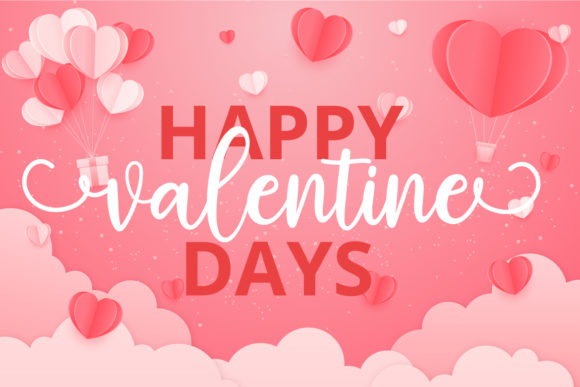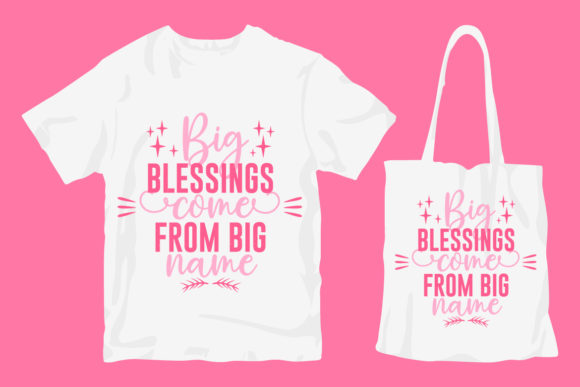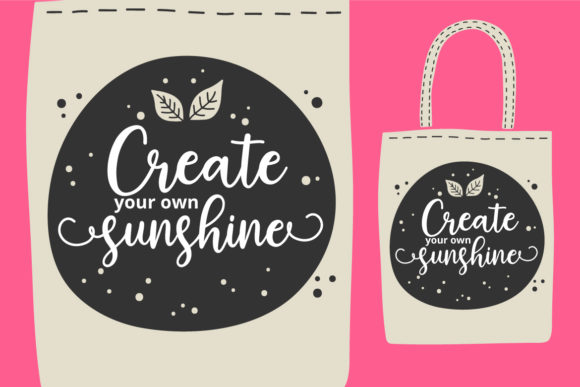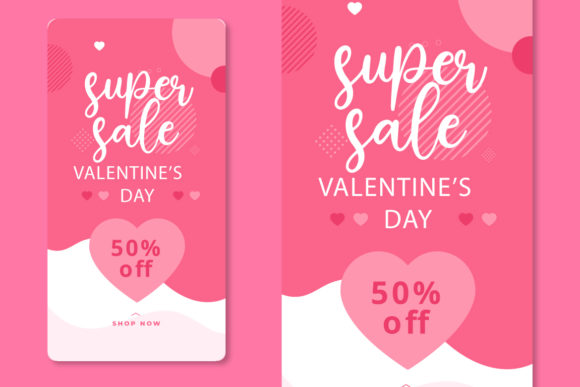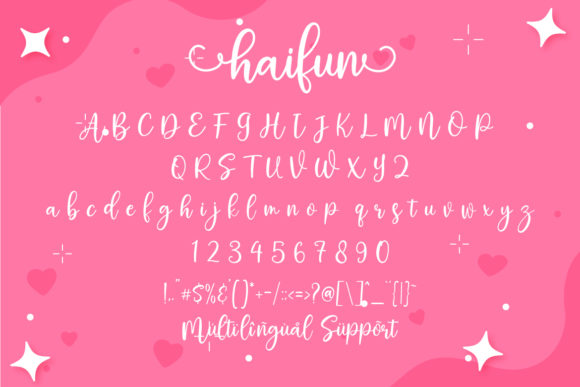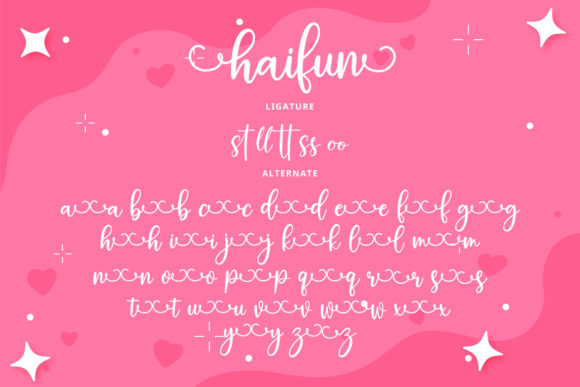
Introducing Haifun Font: The Sweet and Delicate Handwritten Font for Romantic Designs
Are you a designer or crafter looking for a font that can add a touch of romance and personalization to your designs? Look no further than Haifun Font, a sweet and delicate handwritten font that’s perfect for creating beautiful wedding invitations, cards, and other designs that require a special touch.
What Makes Haifun Font Special?
Haifun Font is a dainty and joyful font that’s designed to bring a sense of elegance and sophistication to your designs. Its delicate and handwritten style makes it ideal for creating romantic and personalized designs that will leave a lasting impression on your audience. Whether you’re designing wedding invitations, greeting cards, or other special occasion designs, Haifun Font is the perfect choice.
Key Features of Haifun Font
- PUA Encoded: Haifun Font is PUA (Private Use Area) encoded, which means you can access all of the glyphs and swashes with ease. This makes it easy to use and customize the font to suit your design needs.
- Sweet and Delicate: Haifun Font has a sweet and delicate style that’s perfect for creating romantic and personalized designs.
- Handwritten Style: The font has a handwritten style that gives it a personal and unique touch.
- Versatile: Haifun Font can be used for a variety of design projects, including wedding invitations, cards, and other special occasion designs.
Uses for Haifun Font
Haifun Font is a versatile font that can be used for a variety of design projects, including:
- Wedding Invitations: Create beautiful and romantic wedding invitations that will set the tone for the big day.
- Greeting Cards: Design personalized greeting cards for special occasions, such as birthdays, anniversaries, and holidays.
- Stationery: Use Haifun Font to create custom stationery, including letterheads, journals, and notebooks.
- Digital Designs: Use the font to create digital designs, such as social media graphics, blog posts, and email newsletters.
Why Designers and Crafters Love Haifun Font
Designers and crafters love Haifun Font for its unique and romantic style. The font is easy to use and customize, making it perfect for creating personalized designs that stand out from the crowd. Here are just a few reasons why designers and crafters love Haifun Font:
- Ease of Use: Haifun Font is easy to use and customize, even for those who are new to font design.
- Unique Style: The font has a unique and romantic style that’s perfect for creating designs that stand out from the crowd.
- Time-Saving: Haifun Font saves designers and crafters time and effort, as it can be used to create beautiful designs quickly and easily.
Tips for Using Haifun Font
Here are a few tips for using Haifun Font to create beautiful designs:
- Pair with Other Fonts: Pair Haifun Font with other fonts to create a unique and interesting design.
- Use Swashes and Glyphs: Use the swashes and glyphs included with Haifun Font to add a personal touch to your design.
Haifun Font is a sweet and delicate handwritten font that’s perfect for creating romantic and personalized designs. With its PUA encoded feature, sweet and delicate style, and versatile uses, Haifun Font is a must-have for designers and crafters. Whether you’re creating wedding invitations, cards, or other special occasion designs, Haifun Font is the perfect choice. So why wait? Download Haifun Font today and start creating beautiful designs that will leave a lasting impression on your audience!